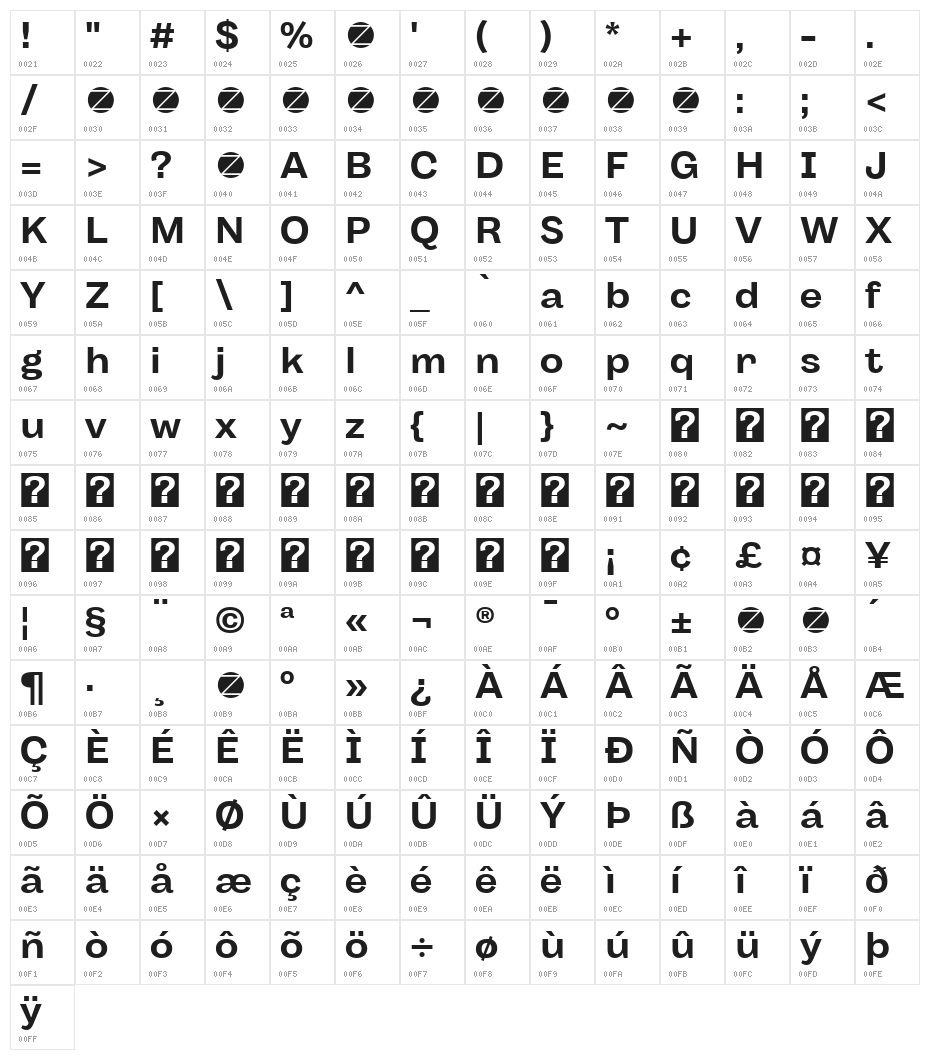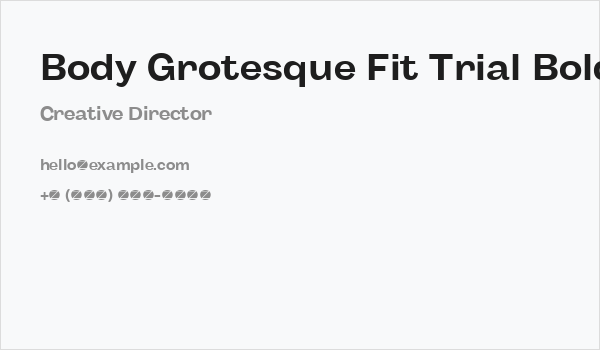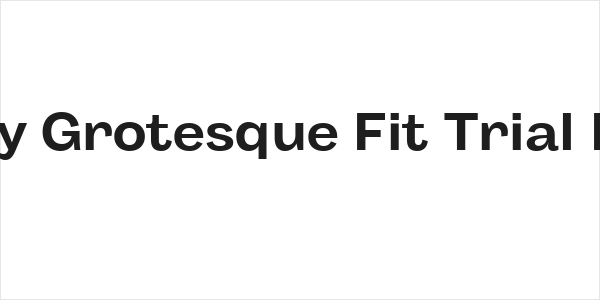
Body Grotesque Fit Trial Bold Font
Body Grotesque Fit Trial Bold Description
This font features a bold and assertive style with clean, straight lines and a modern aesthetic. The uppercase and lowercase letters are well-proportioned, offering a sense of balance and uniformity. The characters are designed with a consistent stroke weight, providing a strong visual impact. The numerals and special characters maintain the same boldness, ensuring readability and coherence across different uses. The overall design is sleek and contemporary, making it suitable for a variety of applications where clarity and emphasis are required.
| Use Case | Headlines, Logos, Advertising |
| Proposed Projects | Ideal for headlines, advertising, branding, and any project requiring a bold statement. |